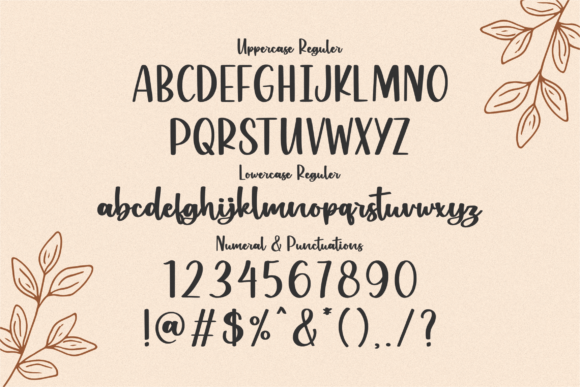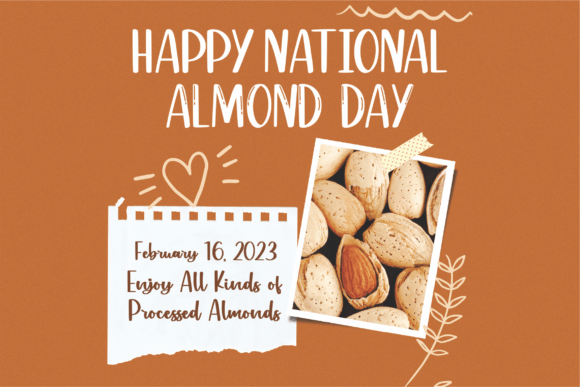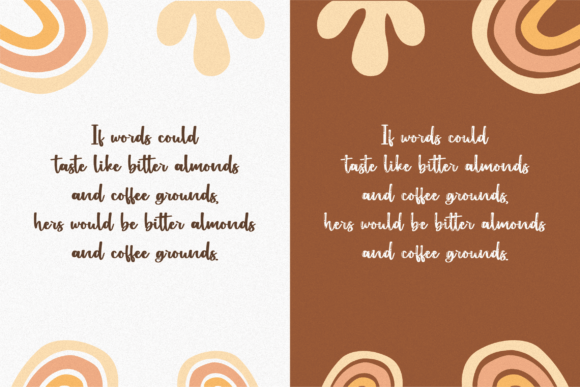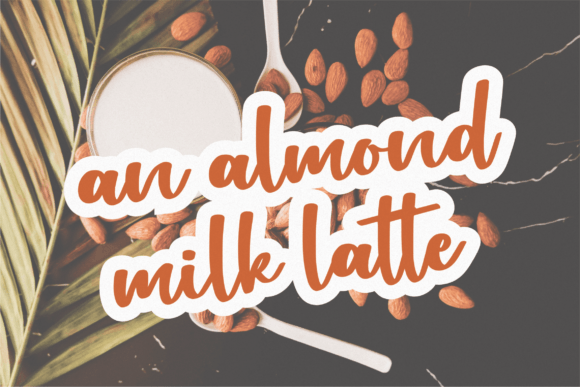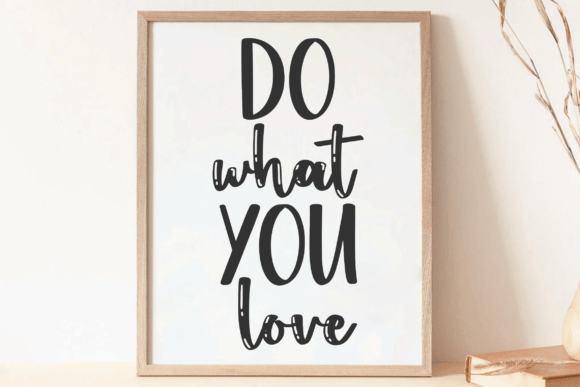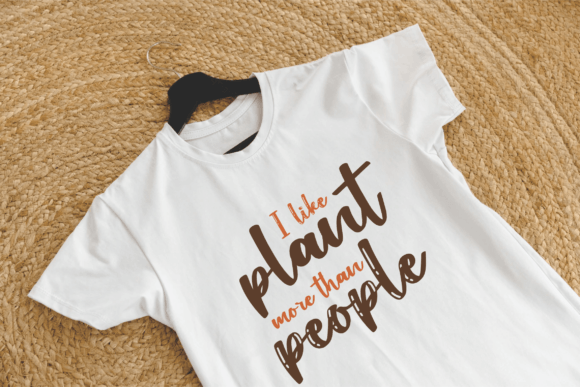
Blossoming Creativity with Bloomi Almond Font
Have you ever been brainstorming ideas for a project and suddenly, the perfect concept blooms in your mind? It’s a feeling that’s hard to describe, but it’s a mix of excitement, relief, and pride. For designers, this moment is often the result of choosing the right tools and typography. Speaking of which, let’s talk about the Bloomi Almond Font – a beautiful, handwritten font that’s perfect for making your designs stand out.
With the Bloomi Almond Font, you can add a touch of elegance and sophistication to your projects. Whether it’s product packaging, branding, magazine layouts, or social media graphics, this font is sure to make a lasting impression. Its versatility and unique style make it a valuable asset for designers, allowing them to express their creativity and bring their ideas to life.
Bloomi Almond Font Key Features
- Font Family: Bloomi Almond, a modern and elegant script font
- Character Count: 500+ glyphs, including Latin, Cyrillic, and Greek alphabets, as well as punctuation and symbols
- Unique Characteristics: Hand-drawn design, subtle texture, and intricate details make it perfect for creative and artistic projects
Bloomi Almond Font Review
Bloomi Almond Font caught my attention with its unique blend of elegant and whimsical characteristics. ✨ The font’s fluid lines and subtle almond-shaped terminals make it perfect for adding a touch of sophistication to titles and headings. It also works well in body text, providing a clear and readable experience for users. ✨
- Bloomi Almond Font’s versatility in formatting and styling options is impressive. It supports multiple weights, from light to bold, allowing for a wide range of creative possibilities.
- The font’s x-height is well-proportioned, ensuring that the text remains legible even at smaller sizes.
- Its OpenType features, such as ligatures and swashes, add an extra layer of sophistication to the font.
However, I did encounter some limitations while using Bloomi Almond Font. ⚠️ It may not be the best choice for very large blocks of text, as the font’s irregularities can become distracting. Additionally, the font’s spacing may require some adjustments to ensure proper alignment and layout.
Overall, I’m impressed with Bloomi Almond Font’s unique character and versatility. While it may not be suitable for all design projects, it’s definitely worth considering for titles, headings, and other design elements where a touch of elegance is desired.
Experiment with different font sizes, colors, and combinations to achieve unique visual effects.
Use the Bloomi Almond Font to add a touch of elegance and sophistication to your designs.
Combine the font with other design elements to create a cohesive and visually appealing look.
The Bloomi Almond Font is perfect for:
Alternatives to Bloomi Almond Font
Lato is a sans-serif font designed by Łukasz Dziedzic. It is a versatile and highly readable font suitable for body text, headings, and titles. Lato is a great alternative to Bloomi Almond Font for designs that require a clean and modern look.
Comparison: Lato has a more geometric and minimalist feel compared to Bloomi Almond Font’s more rounded and elegant appearance. Lato is a better choice for designs that require a lot of text and need to be easily readable.
Montserrat is a sans-serif font designed by Julieta Ulanovsky. It is a geometric font with a strong and urban feel, making it perfect for designs that require a modern and edgy look. Montserrat is a great alternative to Bloomi Almond Font for designs that need a bold and attention-grabbing font.
Comparison: Montserrat has a more geometric and condensed feel compared to Bloomi Almond Font’s more rounded and elegant appearance. Montserrat is a better choice for designs that require a lot of text and need to be easily readable, but with a stronger and more modern feel.
Is the Bloomi Almond Font compatible with variable font technology?
Yes, the Bloomi Almond Font is designed to work seamlessly with variable font technology, allowing for advanced typographic control and customization. However, please note that variable font support may vary depending on your design application and operating system.